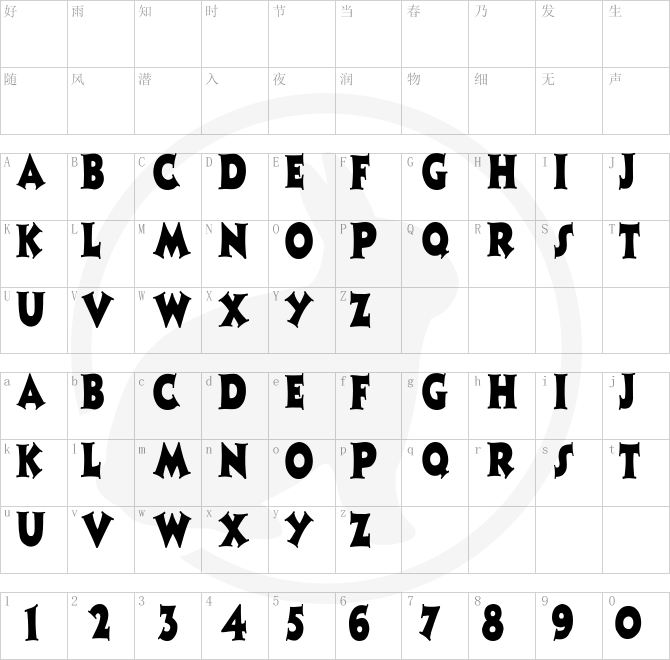
- Font Name:Zaleski Condensed
Zaleski-Condensed.ttf is a very beautiful artistic font, Zaleski-Condensed.ttf is widely used in the design and printing of various books and pictures,Zaleski-Condensed.ttf has a strong visual impact,Zaleski-Condensed.ttf is a commonly used font in newspapers, magazines and books, and is used in posters, e-commerce Poster design, store design, logo design, font design and other fields.Zaleski-Condensed.